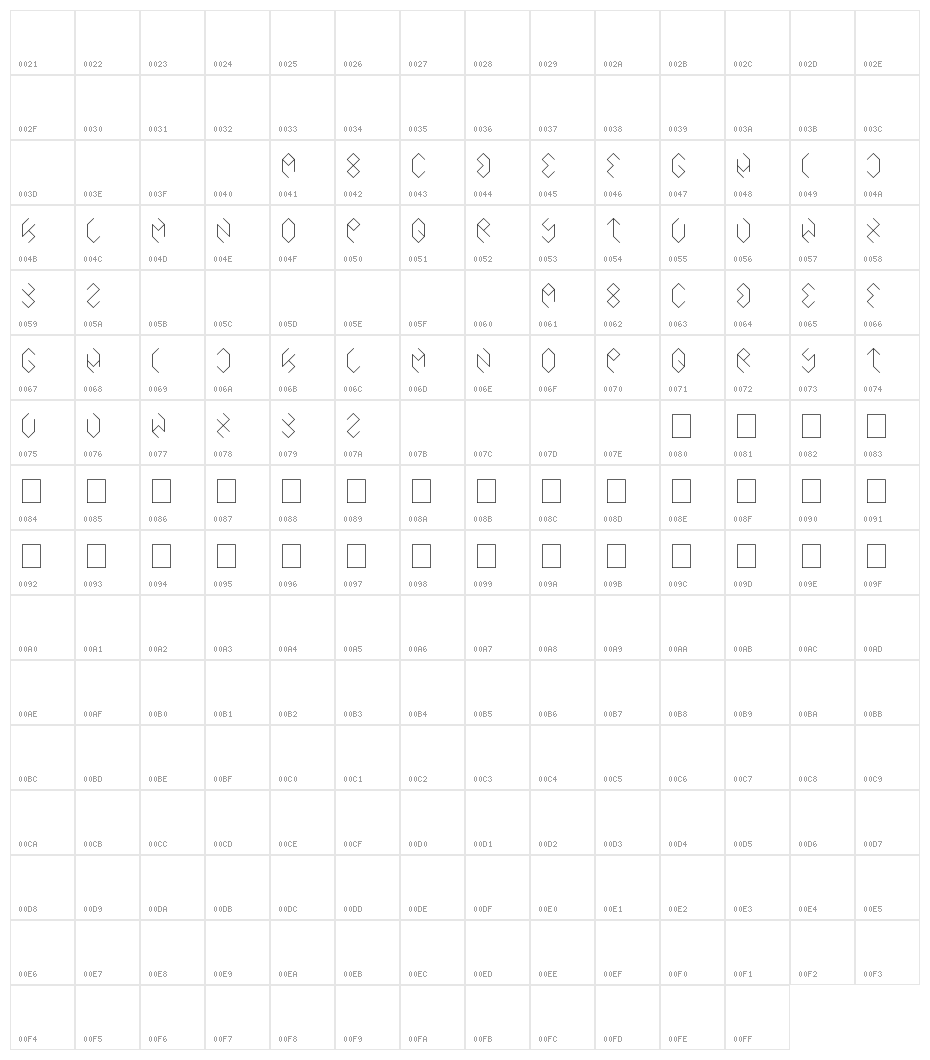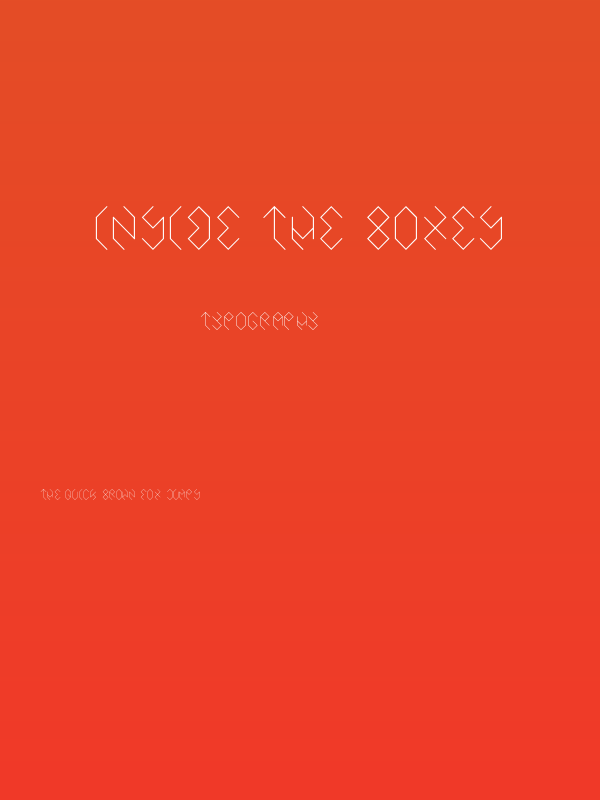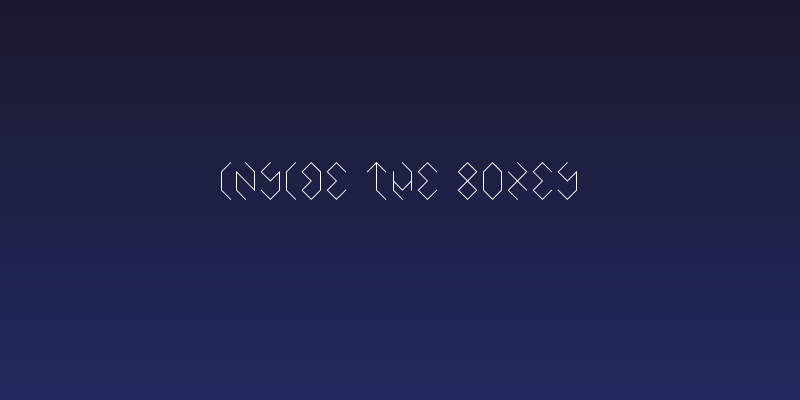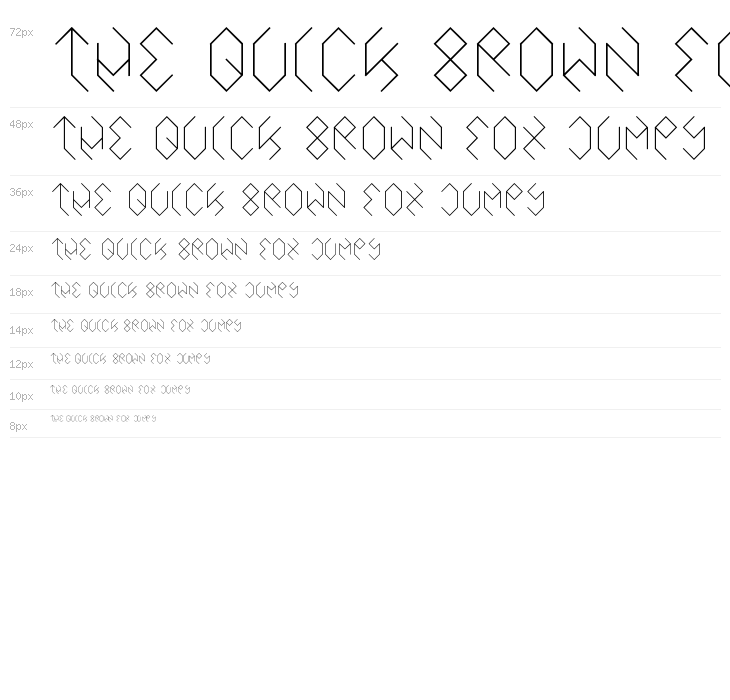
inside the boxes Font
inside the boxes Description
This font features a highly geometric and angular design, characterized by sharp lines and distinct angles that create a futuristic and technical appearance. Each letter is constructed with a series of straight lines and sharp corners, giving it a unique, almost mechanical feel. The uniformity in line thickness and the consistent use of angles contribute to a cohesive and structured look. This font lacks curves entirely, opting instead for a series of interconnected lines that form each character. The design is minimalistic yet striking, making it suitable for projects that require a modern and edgy aesthetic.
| Use Case | Logos, Headlines |
| Proposed Projects | Ideal for technology branding, sci-fi themed projects, modern posters, and digital interfaces. |